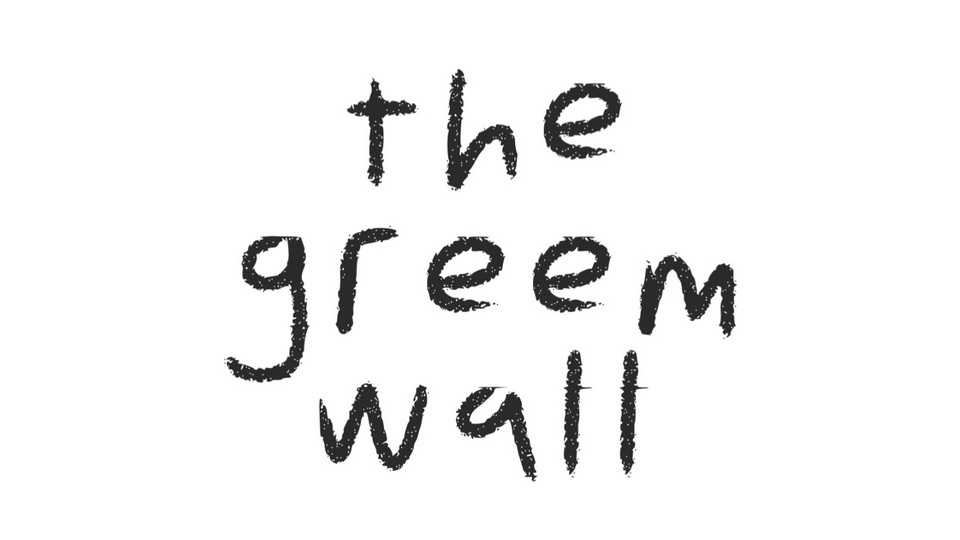
Download The Green Wall font, a simple and organic hand-drawn brush pen typeface that exudes authenticity and warmth. It features fluid, expressive strokes and gently varied letterforms.